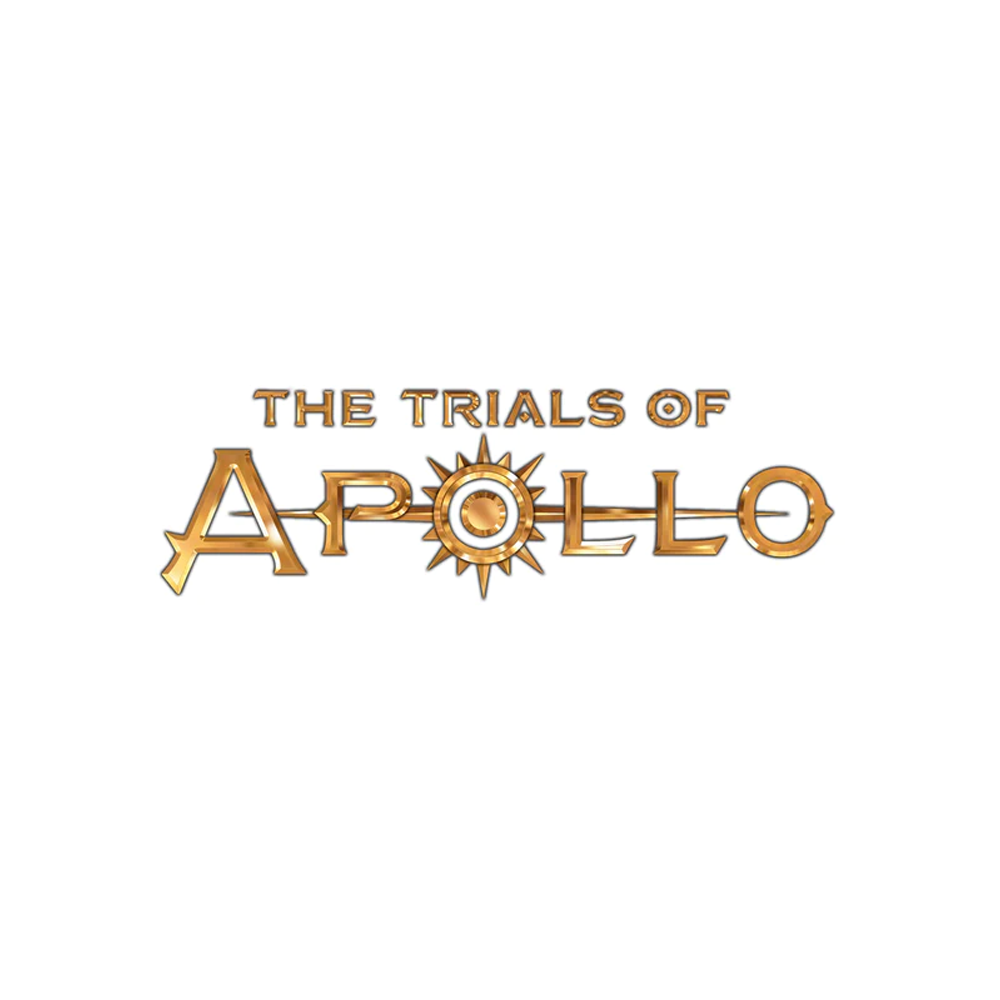
The Trials of Apollo Font
AdventureThe Trials of Apollo is a five-book series of mythological fiction novels written by Rick Riordan as a sequel to 'Heroes of Olympus'. An epic quest adventure follows Apollo as he sets out on Earth to live as a mortal after being sentenced by the god Zeus.
FM Bolyar, a font designed by The Fontmaker, was used for the book title with slight variations. Letters like P and A with median spurs or diamonds come from FM Bolyar Ornate, an ornamental addition to the FM Bolyar.